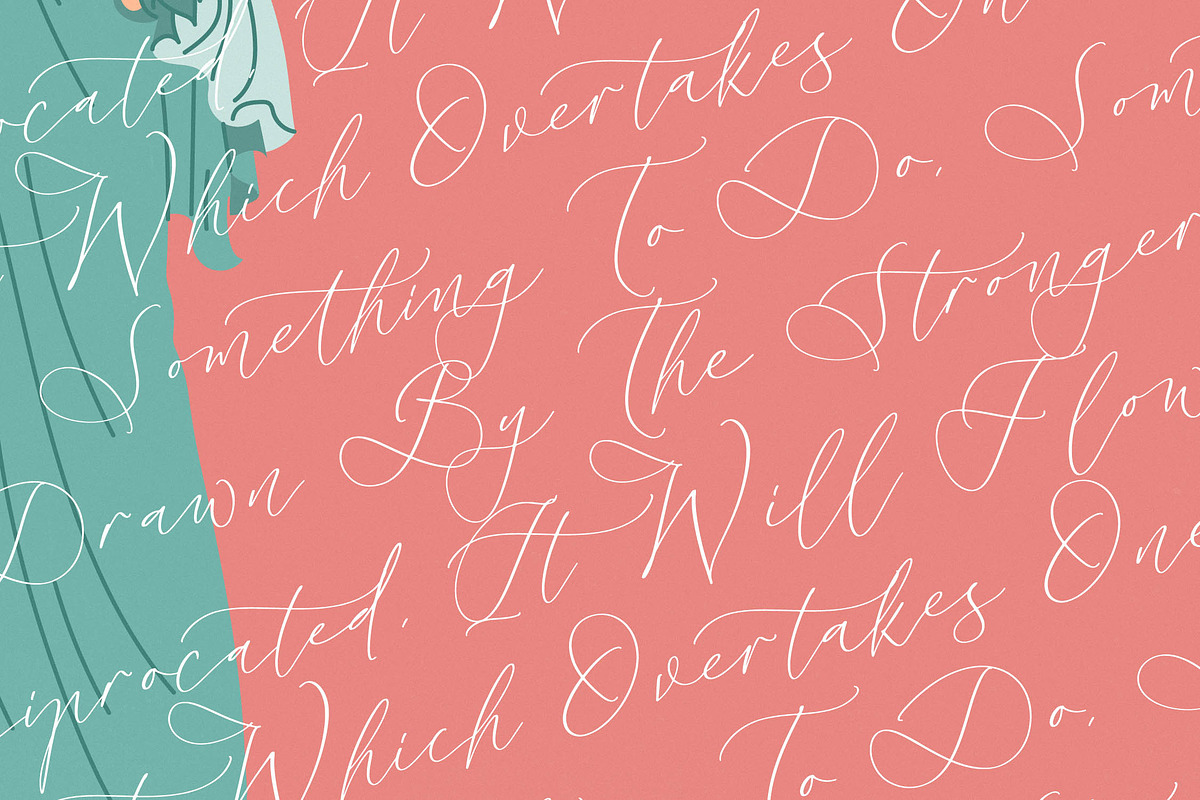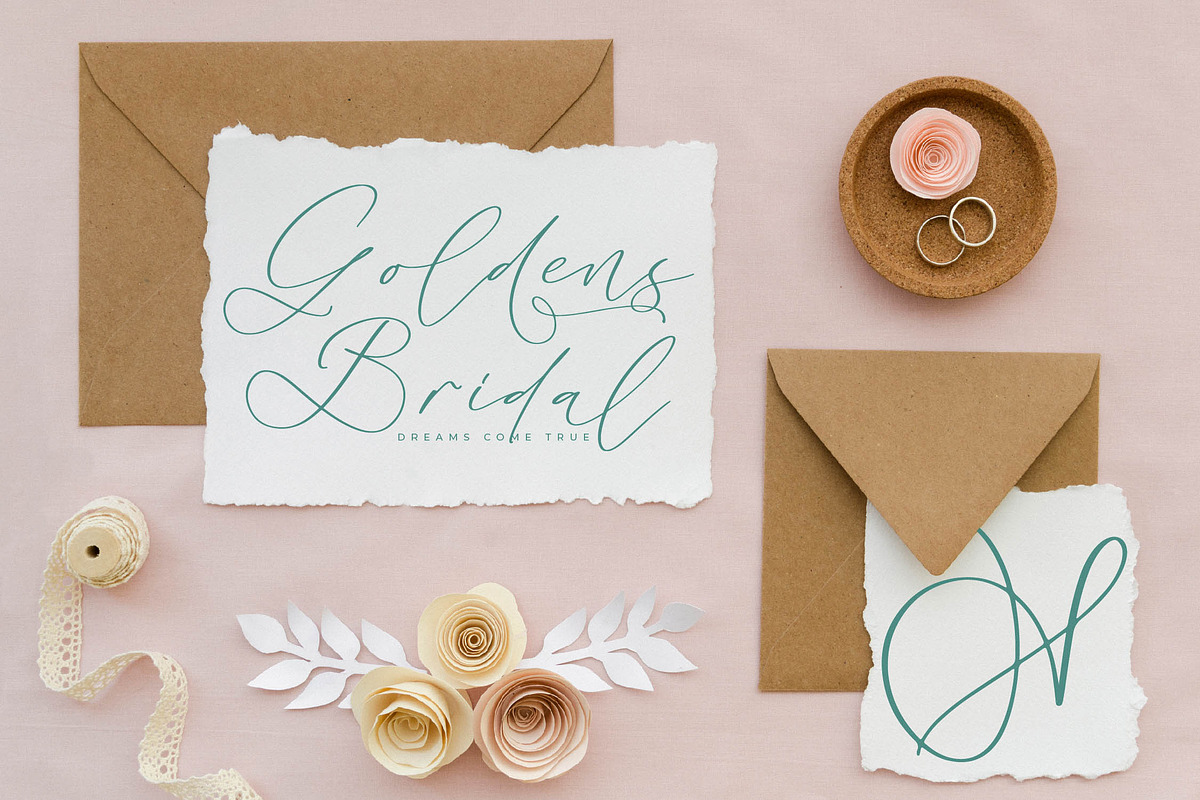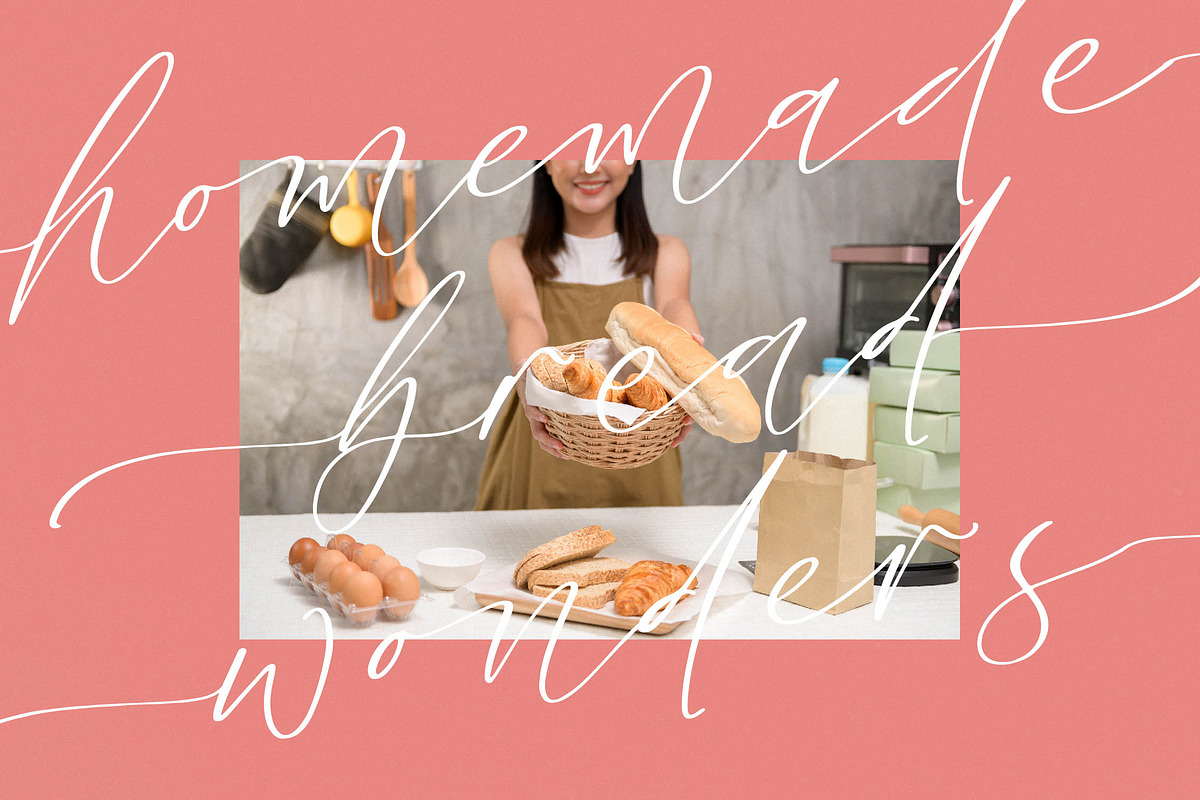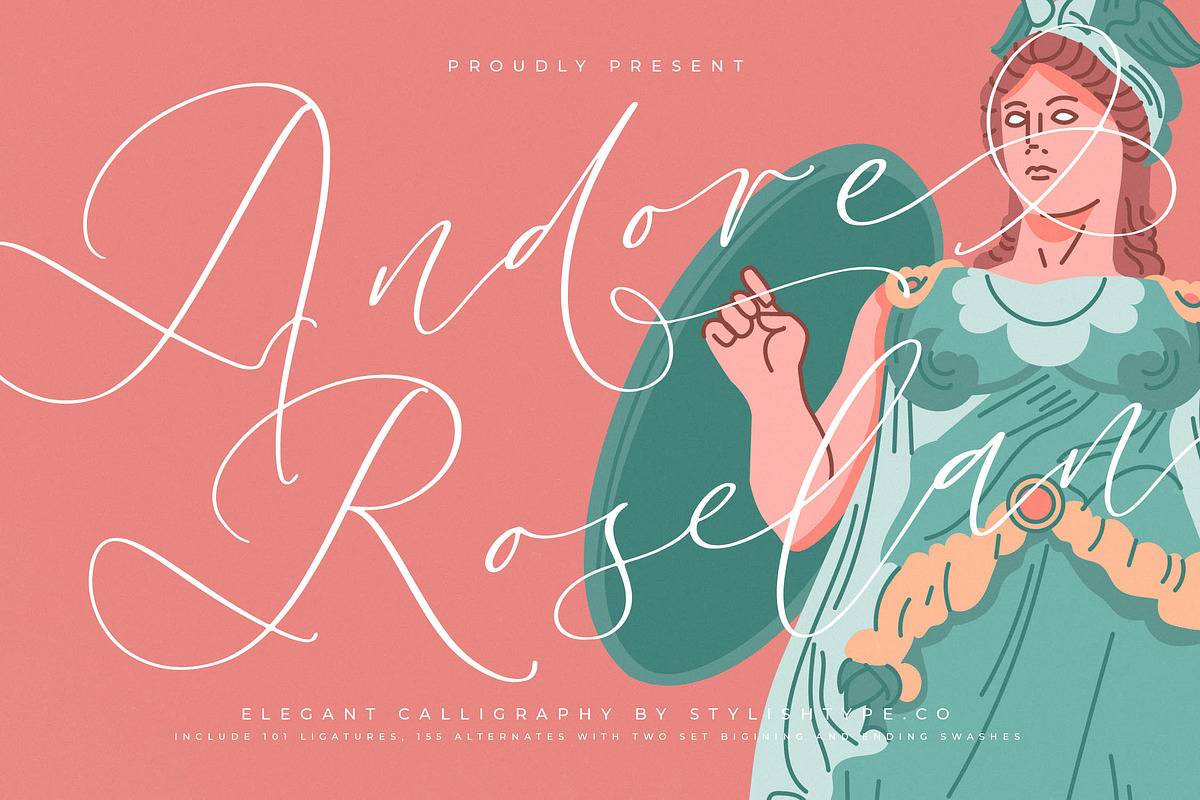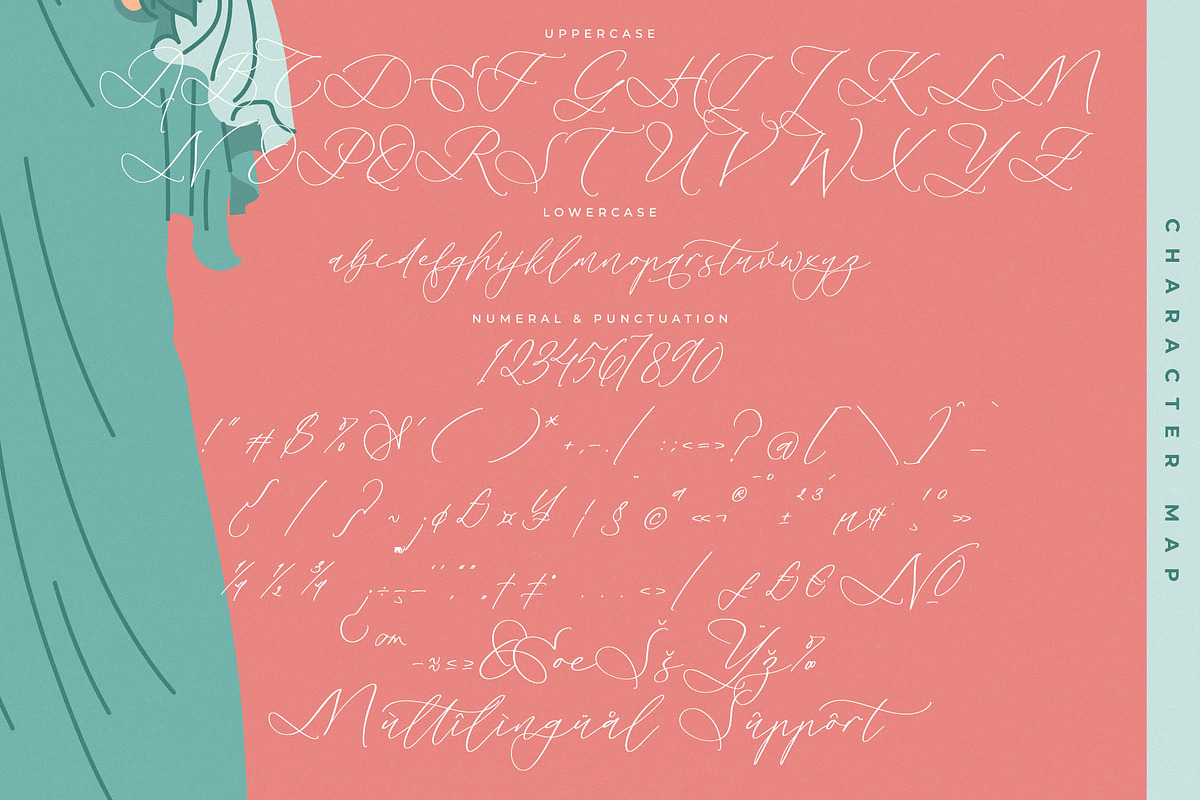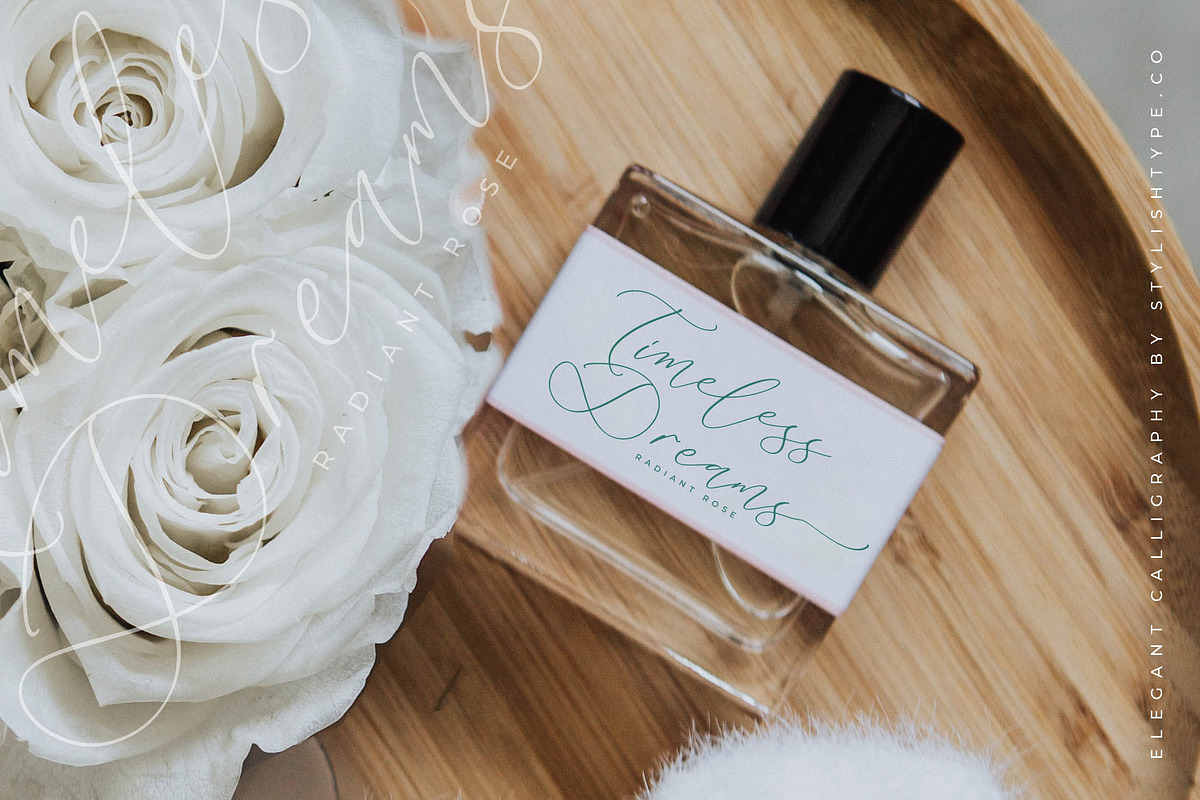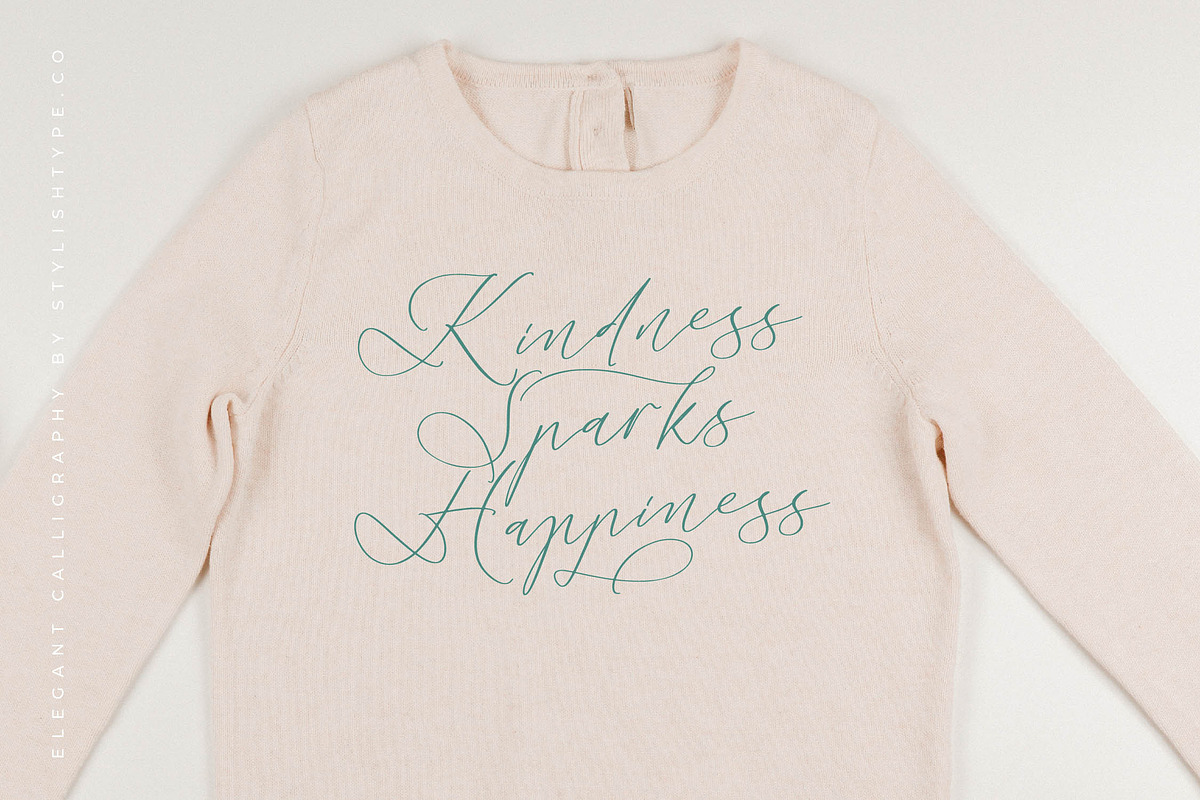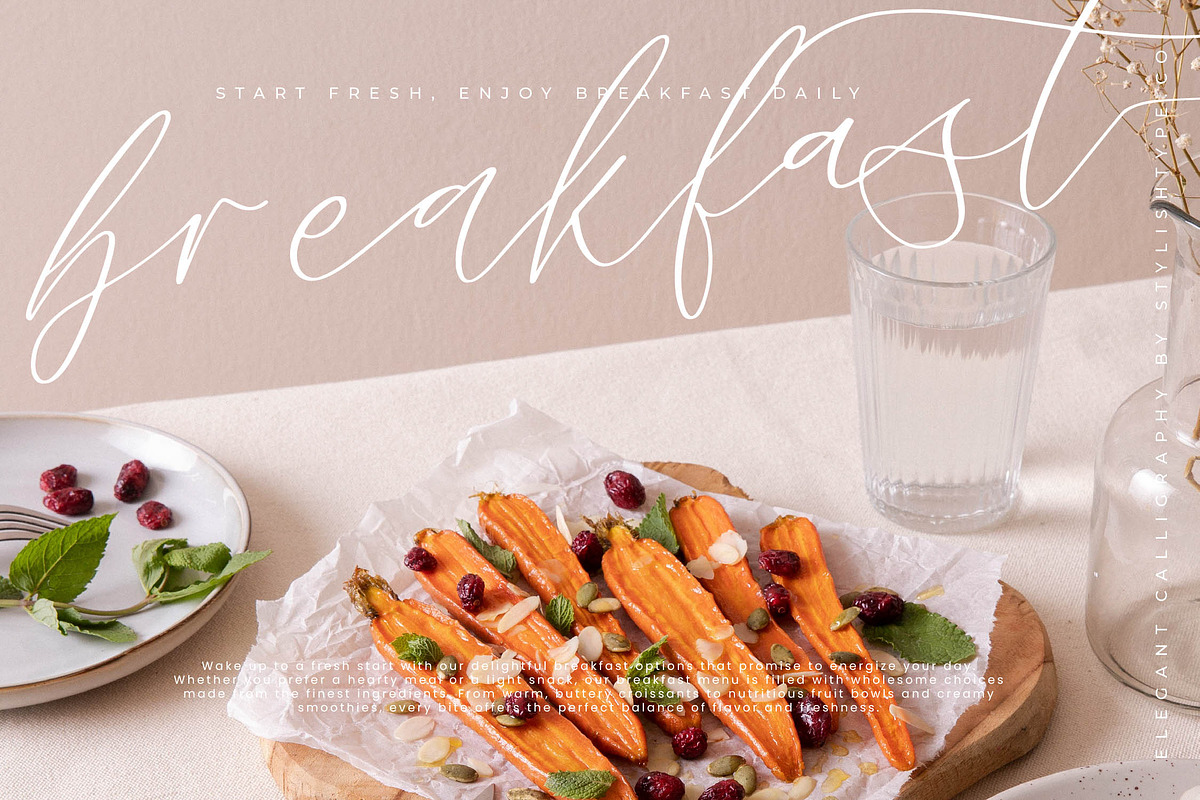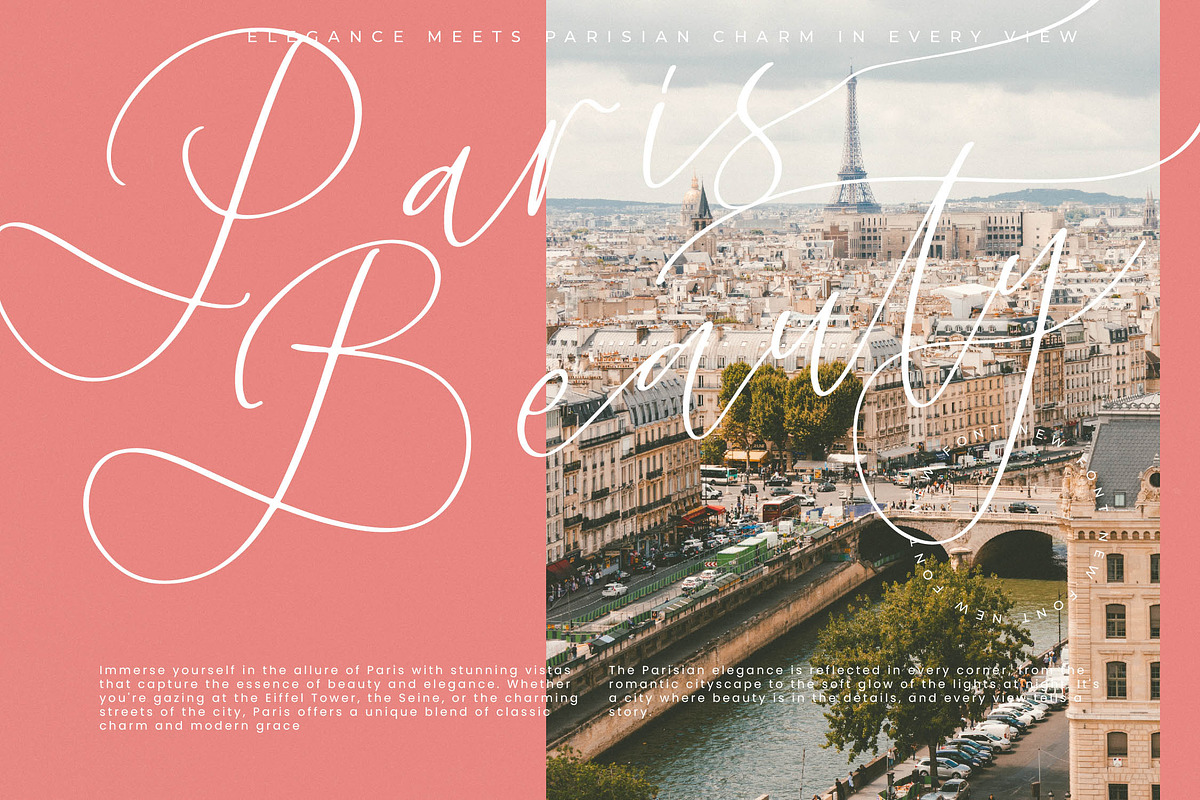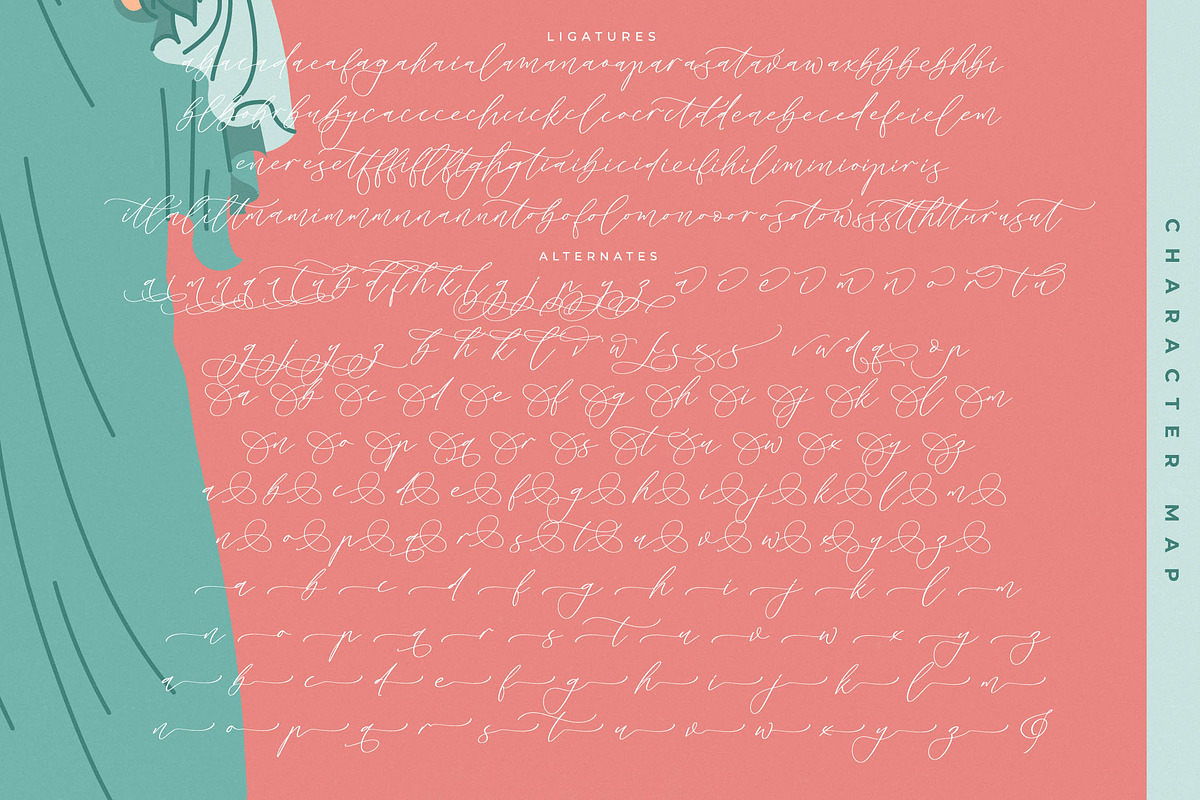
Andore Roselan Elegant Calligraphy
Andore Roselan - Elegant Calligraphy Script , from Stylishtype.Co , Suitable for any projects such as: logos, branding projects, homeware designs, product packaging, mugs, quotes, posters, shopping bags, t-shirts, book covers, name card, invitation cards, greeting cards, label, photography, watermark, special events, and all your other luxury and beautiful projects that need a Luxury Script taste.
- 101 Ligature 155 Alternates & Swashes